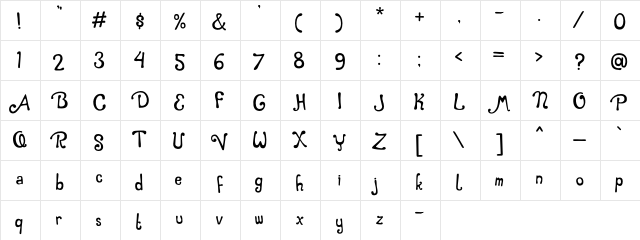
Caramel Macchiato Bouncy Regular
Design Context for Caramel Macchiato Bouncy Typeface
Caramel Macchiato Bouncy is a composed and adaptable typeface that performs quietly and consistently across a wide range of design contexts.